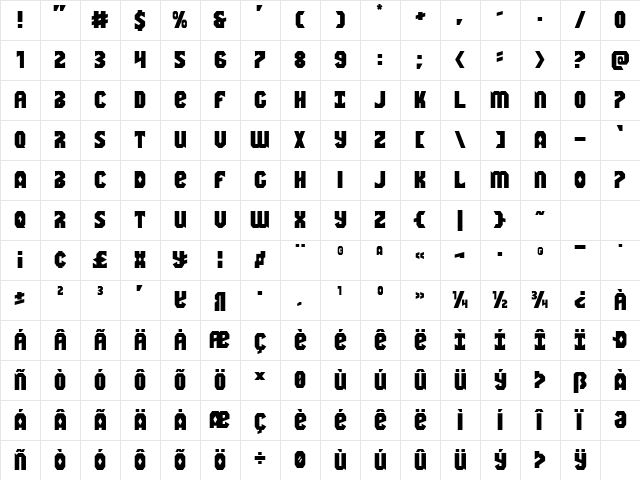
Warrior Nation Expanded
Style: Expanded
Warrior Nation Family
Warrior Nation Expanded
Complete Warrior Nation Expanded glyph index. Displaying only characters natively supported by Warrior Nation Expanded font.
Design Context for Warrior Nation
Warrior Nation is a composed and adaptable typeface that performs quietly and consistently across a wide range of design contexts.